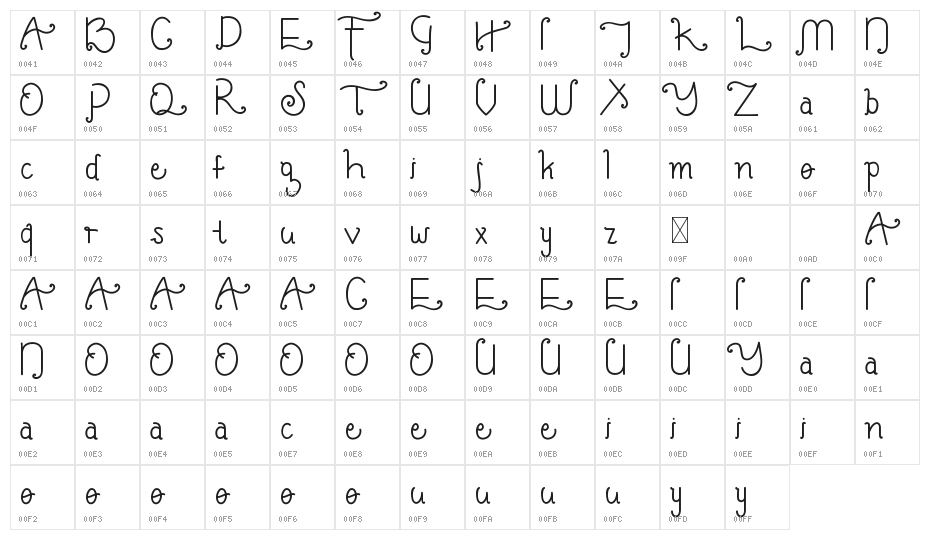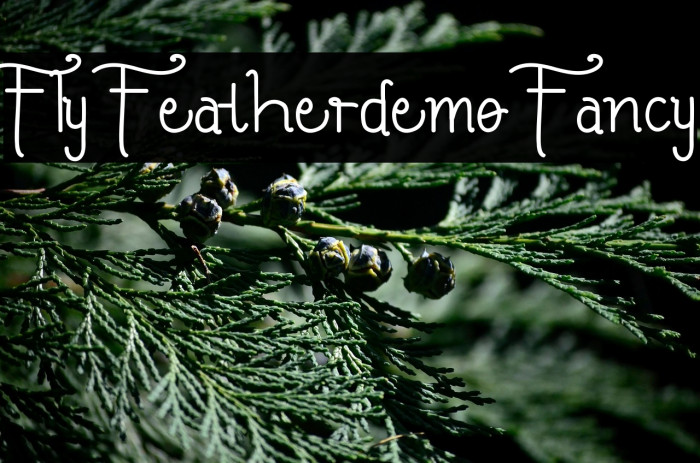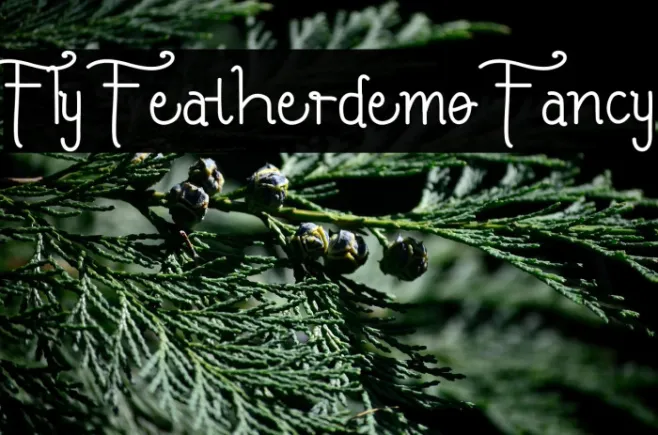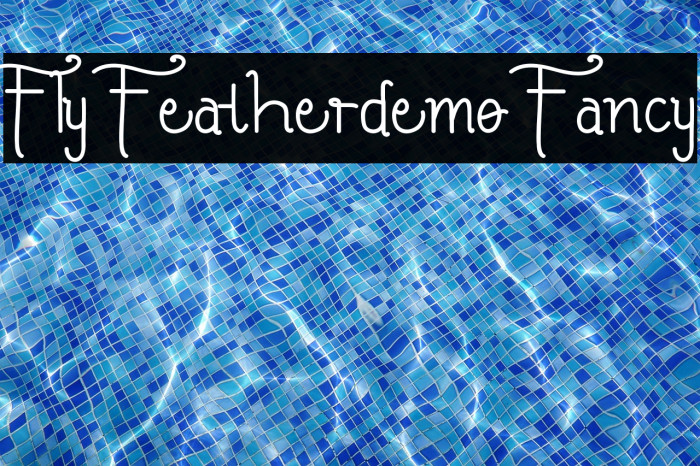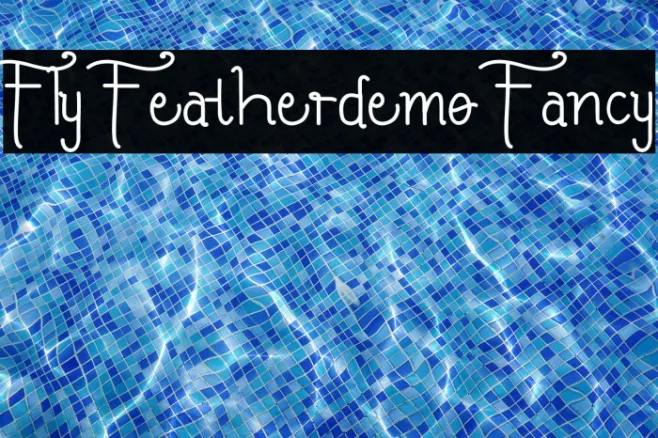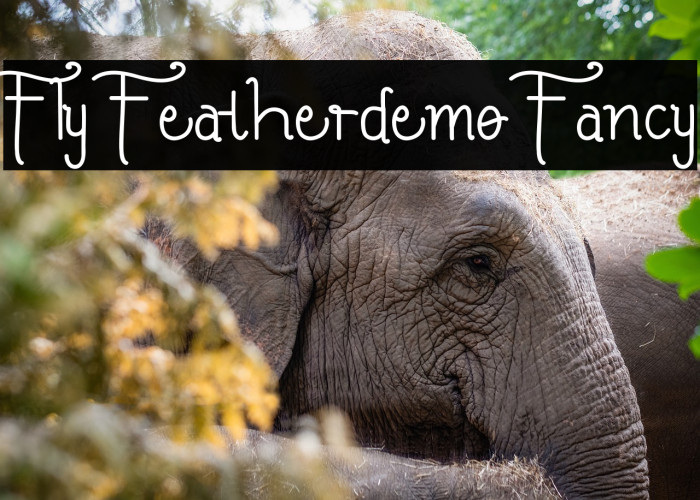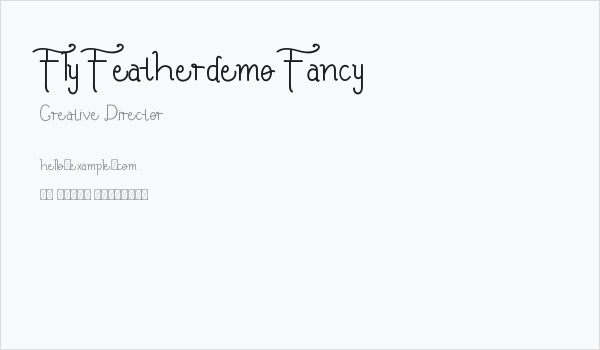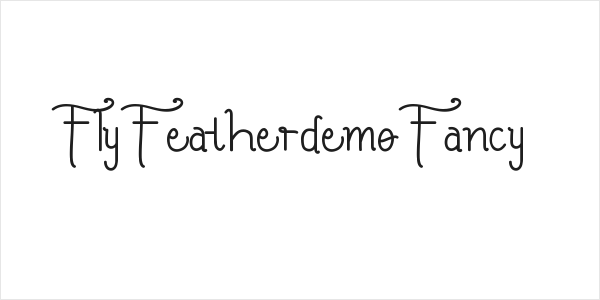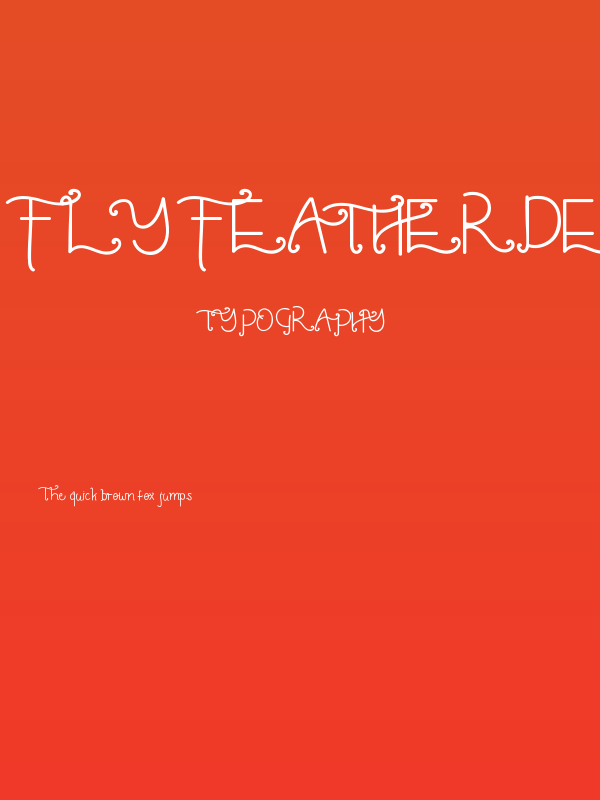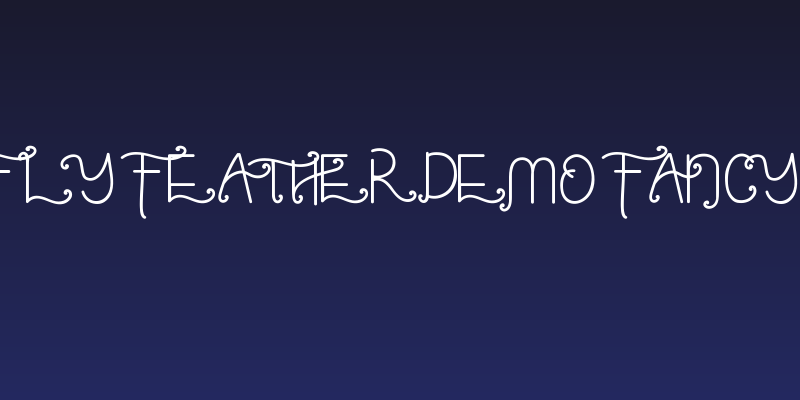
Fly Featherdemo Fancy Font
Fly Featherdemo Fancy Description
This font features a whimsical and decorative style, characterized by its playful curls and loops extending from the ends of the letters. The uppercase letters exhibit a unique blend of elegance and creativity, with each character having distinct flourishes that add a sense of movement and flair. The lowercase letters maintain a consistent style, with smooth curves and a slightly more restrained use of embellishments, ensuring readability while retaining the font's artistic charm. The numbers and special characters are designed to complement the alphabet, incorporating similar decorative elements that unify the overall appearance. This font is ideal for projects that require a touch of fantasy and creativity, making it suitable for invitations, greeting cards, and other artistic endeavors.
| Use Case | Headlines, Artistic projects |
| Proposed Projects | Ideal for invitations, greeting cards, artistic projects, and fantasy-themed designs. |